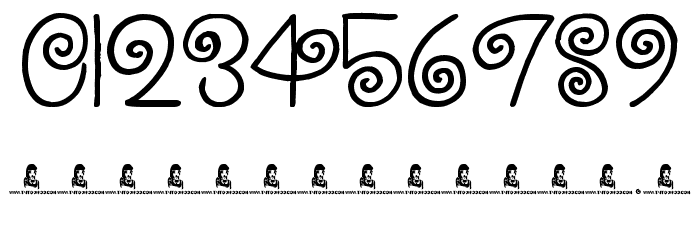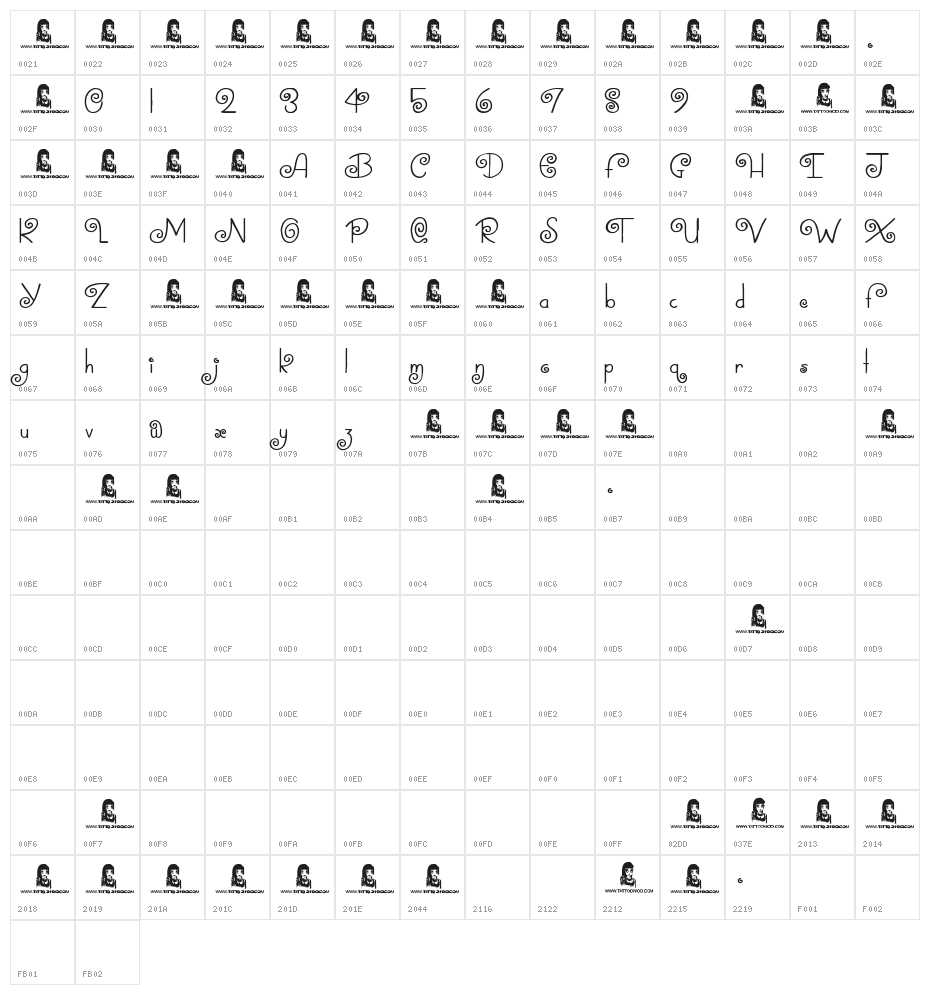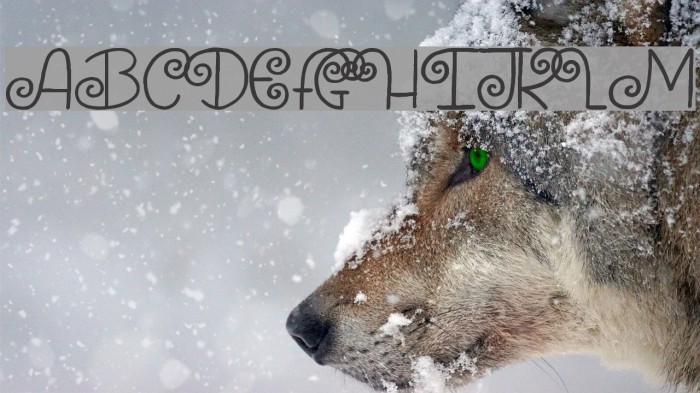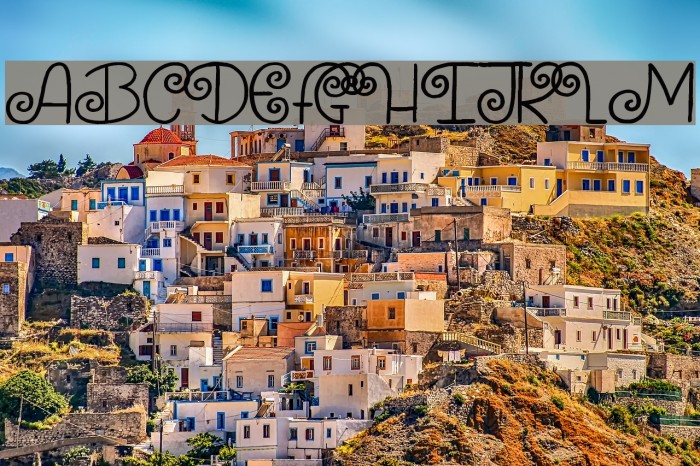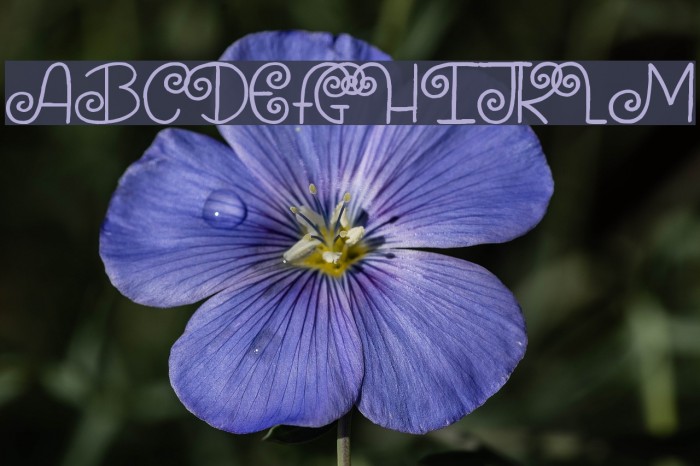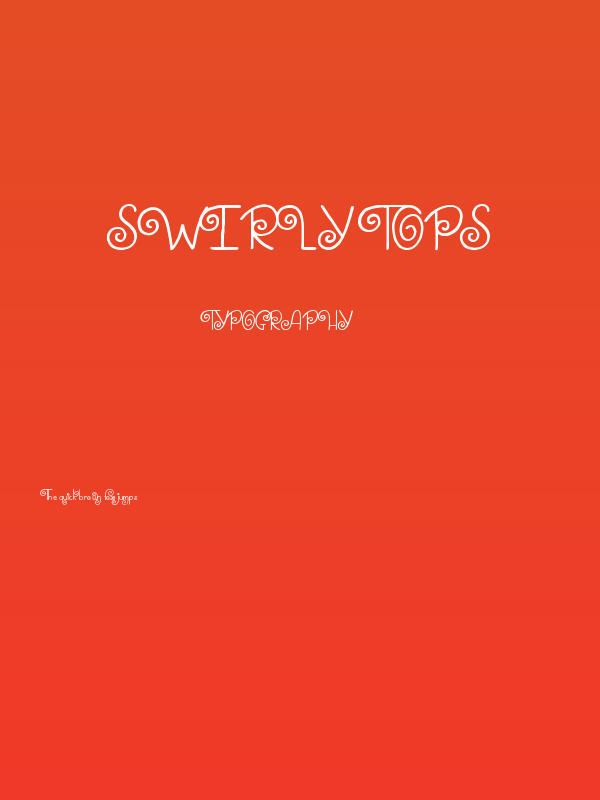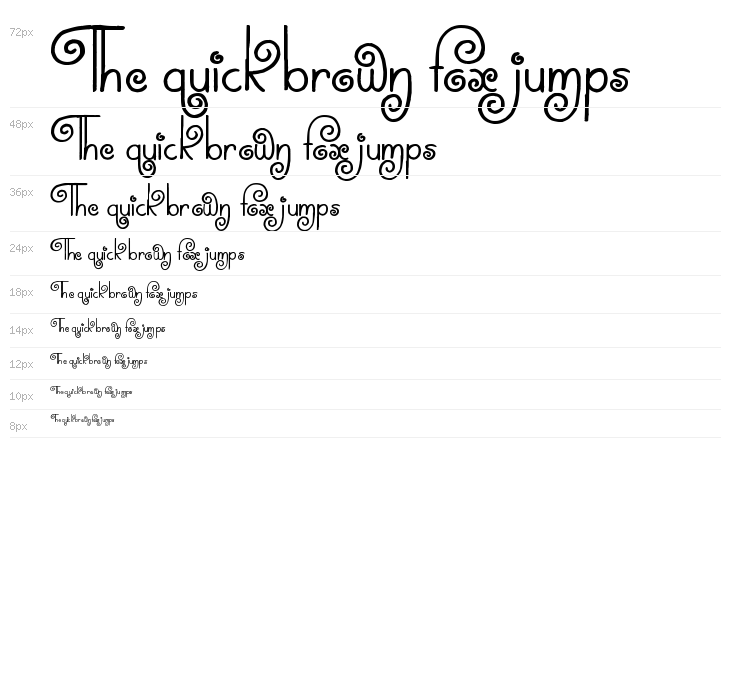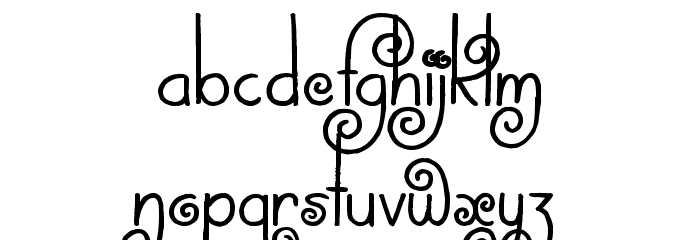
Swirly Tops Font
Swirly Tops Description
This font features an elaborate and whimsical design with swirling, decorative elements integrated into each character. The uppercase letters are particularly ornate, with curls and loops that give them a playful and artistic flair. The lowercase letters maintain this theme, though they are slightly more subdued to ensure readability. Numbers and special characters are equally stylized, making them consistent with the overall aesthetic. The font's unique style makes it ideal for creative projects where a touch of elegance and fun is desired.
| Proposed Projects | Ideal for invitations, greeting cards, artistic posters, and branding that requires a playful and elegant touch. |